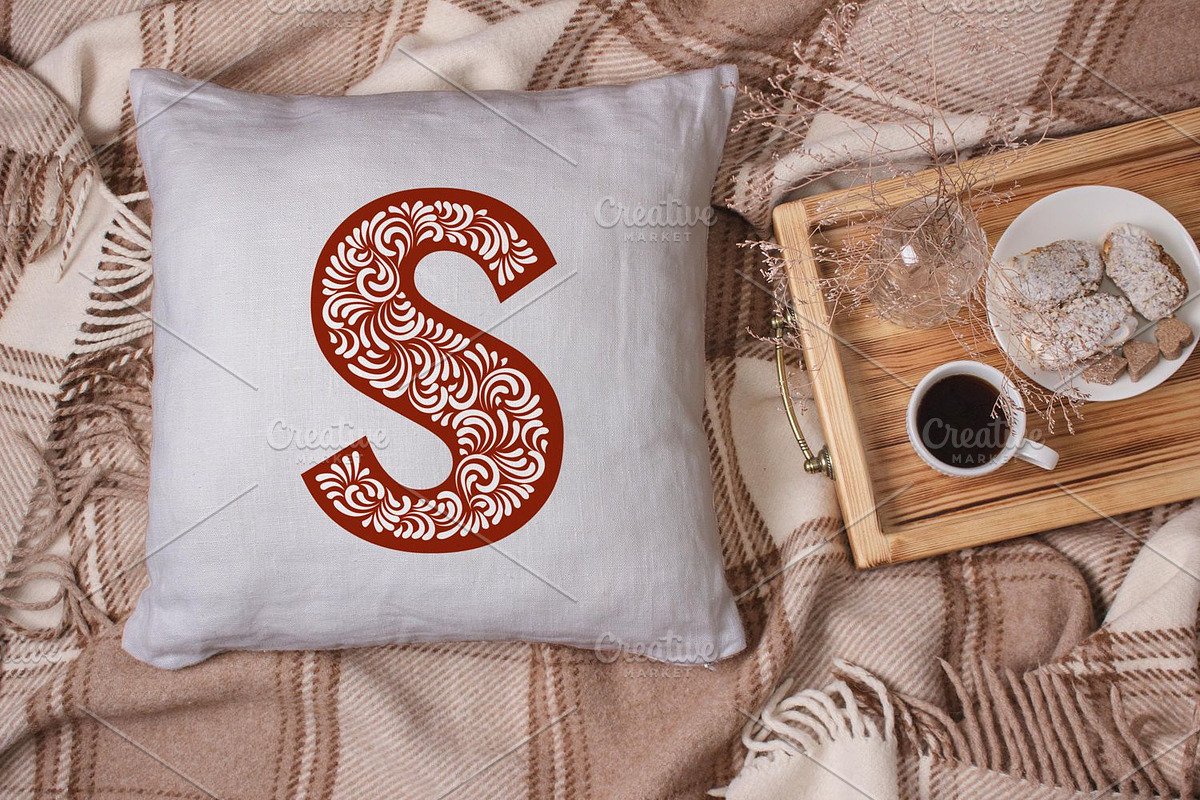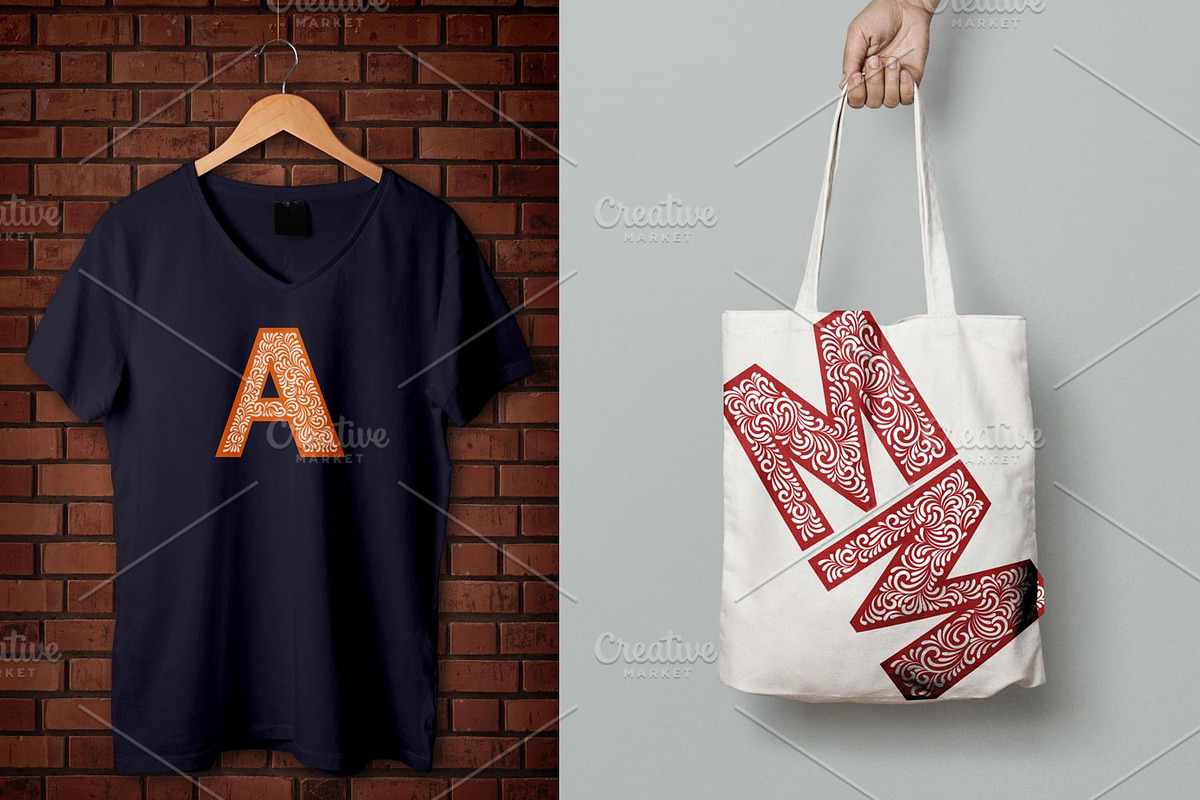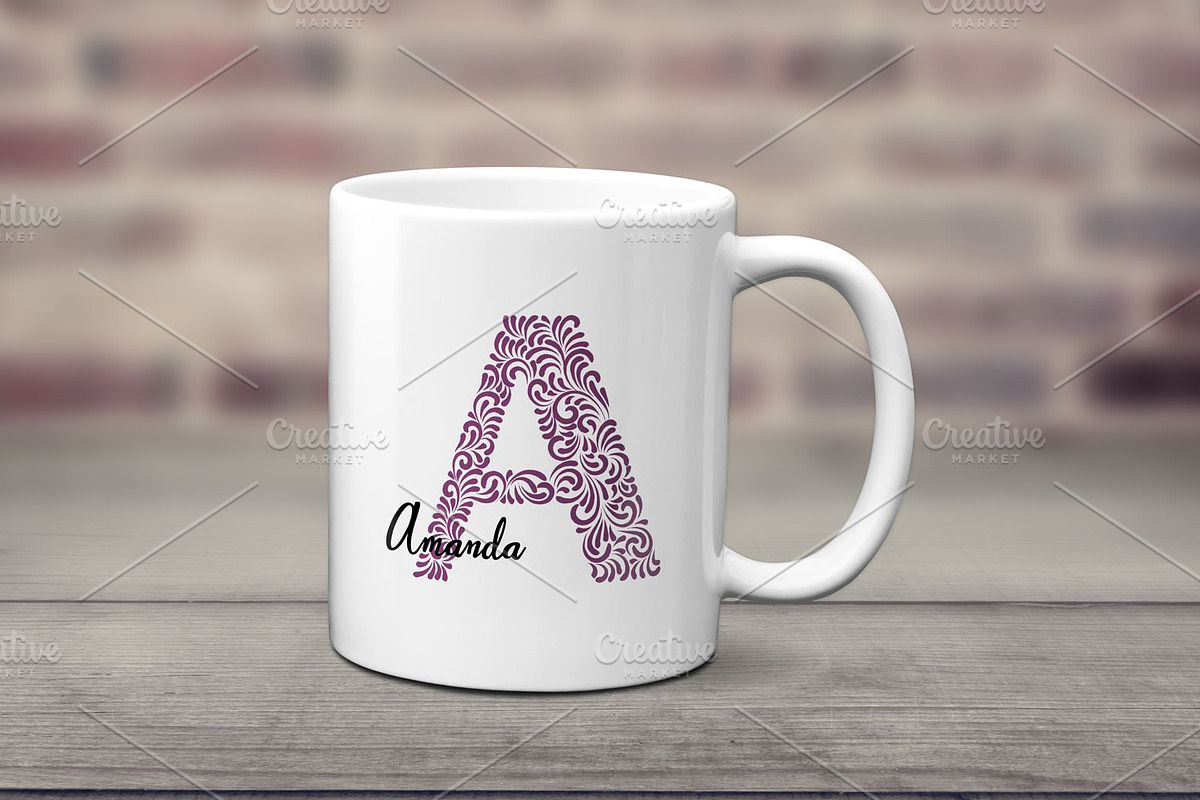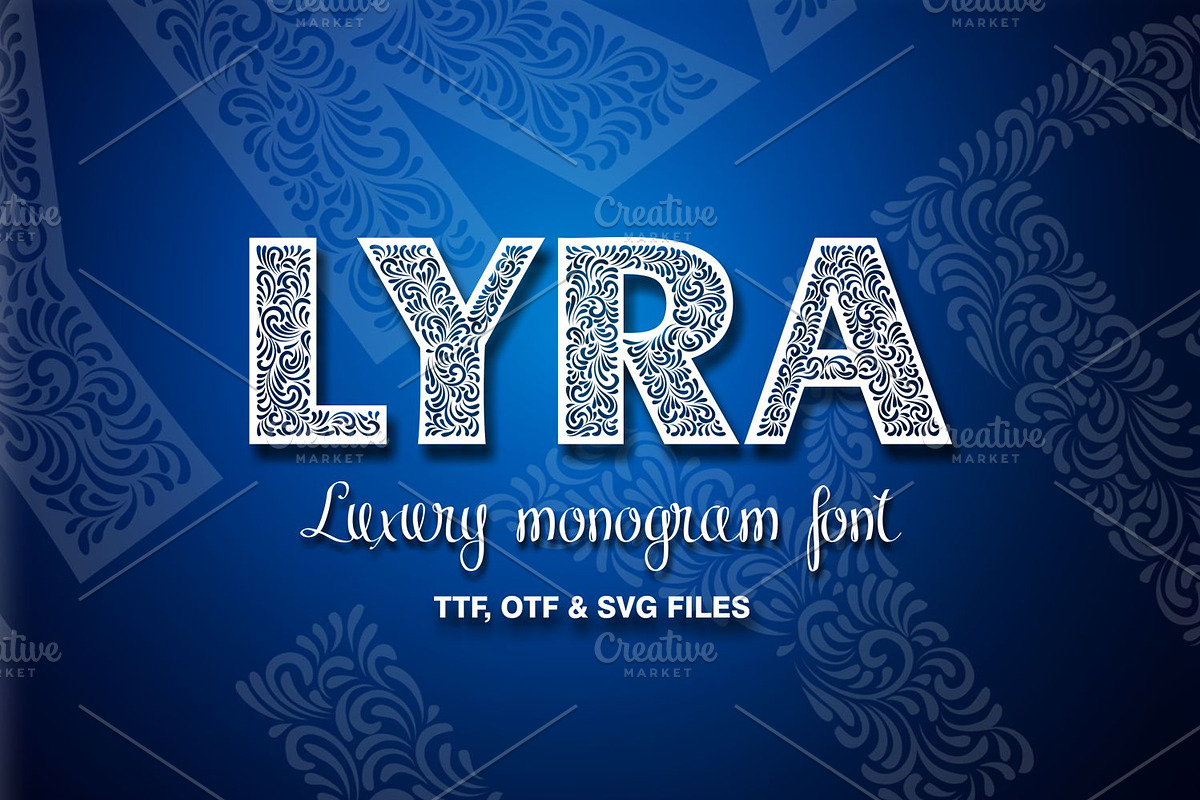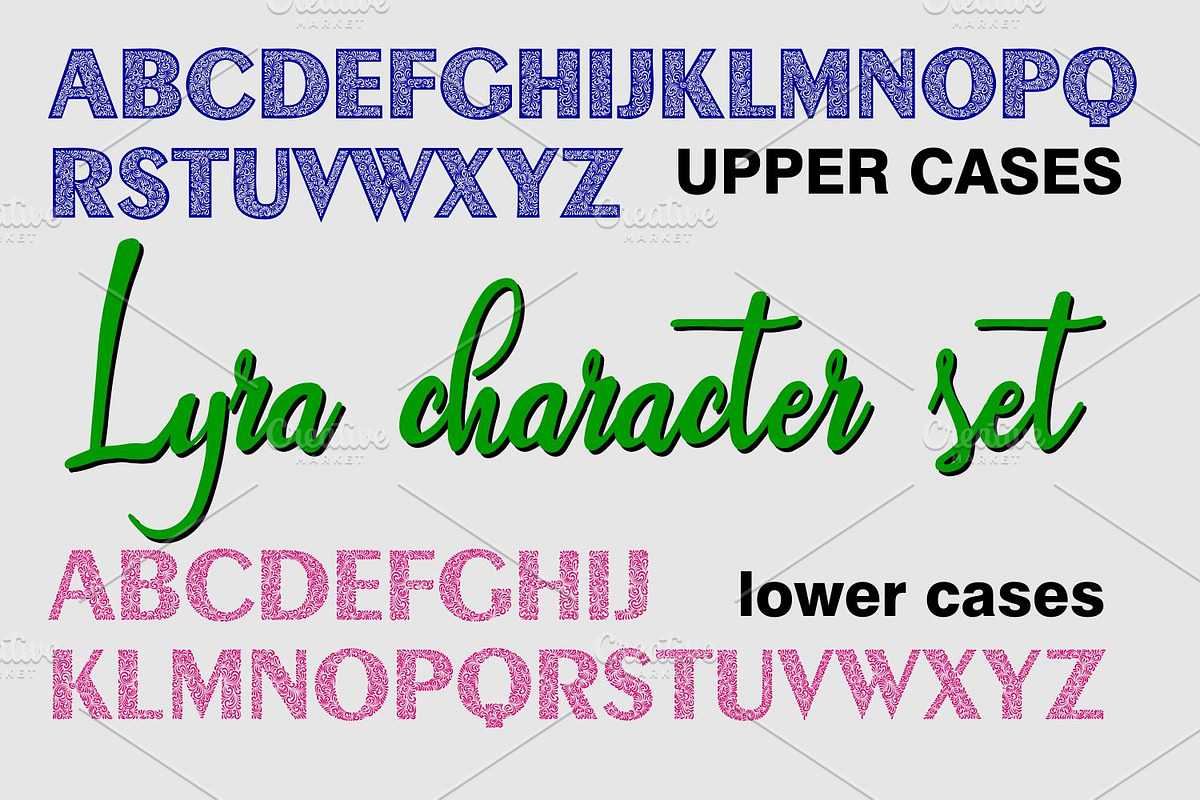
LYRA
LYRA is carefully hand drawn decorative uppercase font.
LYRA by Digital Typeface Studio fits naturally into Branding, posters, packaging, typography.